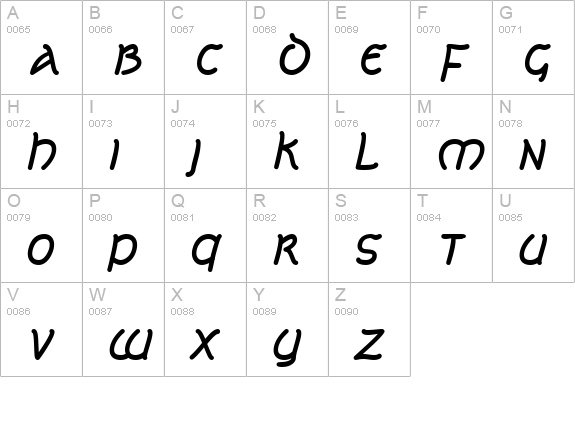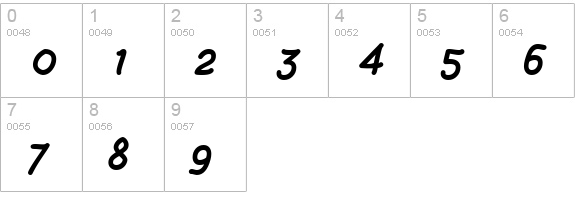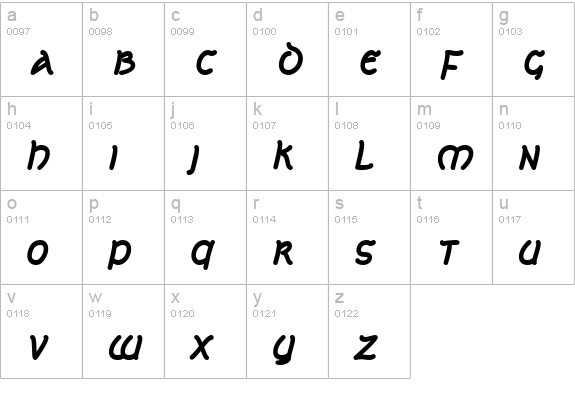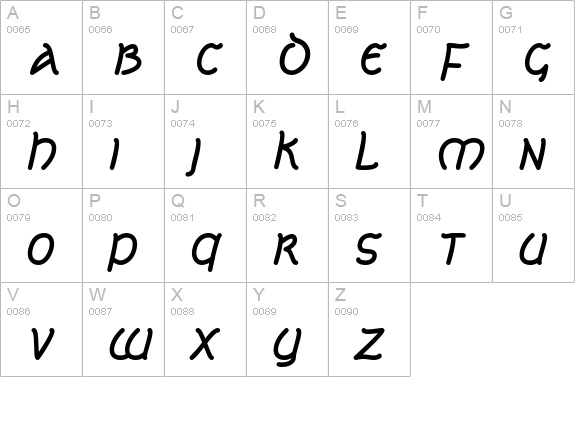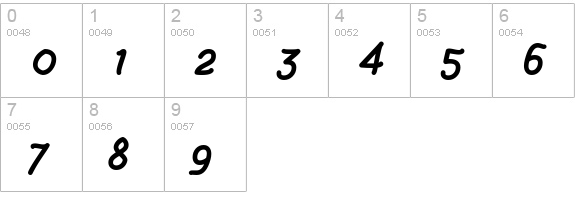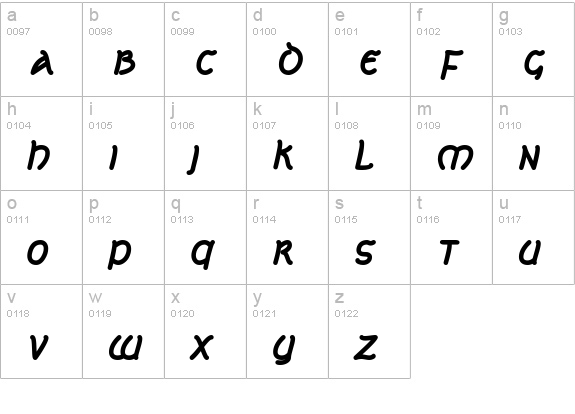
Celtic Lion AOE BoldItalic Font Details
The Celtic Lion AOE BoldItalic font is a stunning and powerful typeface that exudes elegance and sophistication. With its intricate Celtic-inspired design and bold italic styling, this font is perfect for adding a touch of mystique and charm to your projects. Whether you're working on a poster, logo, or any other creative endeavor, the Celtic Lion AOE BoldItalic font will make your text stand out and captivate your audience. Best of all, this font is available for free download at FontsMarket.com. Simply visit the website to get your hands on this unique and captivating font and start using it in your designs today. Don't miss out on the opportunity to enhance your projects with the Celtic Lion AOE BoldItalic font - download it for free now!